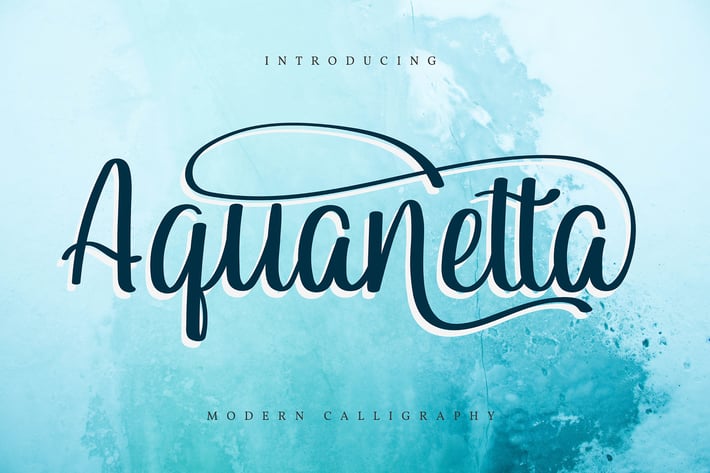
Aquanetta | Modern Calligraphy Font
Aquanetta | Modern Calligraphy Font with a calligraphy style, So beautiful on invitation like greeting cards, branding materials, business cards, quotes, posters, and more!